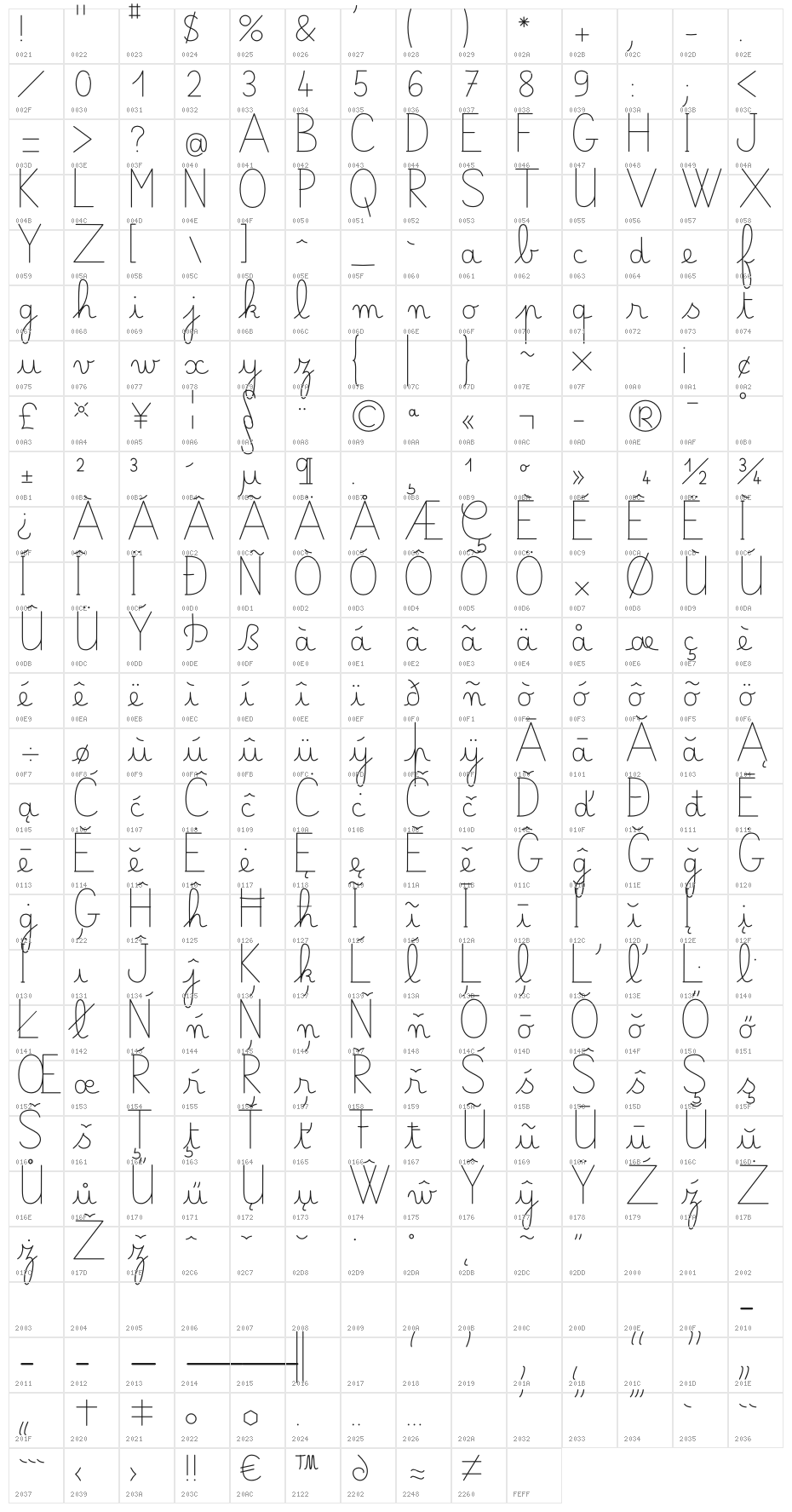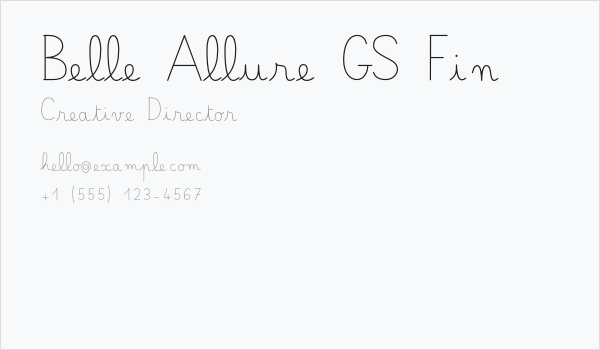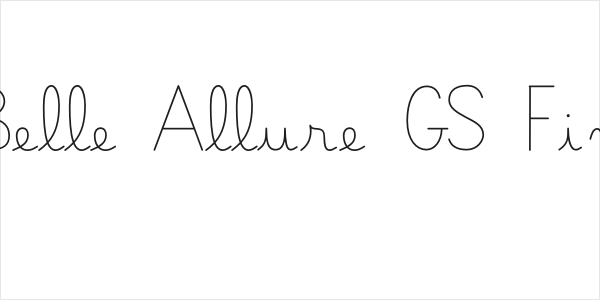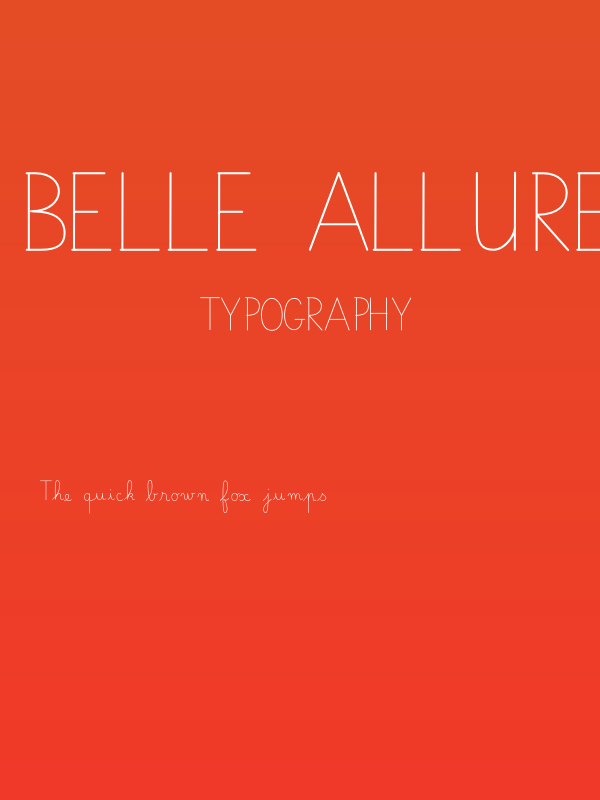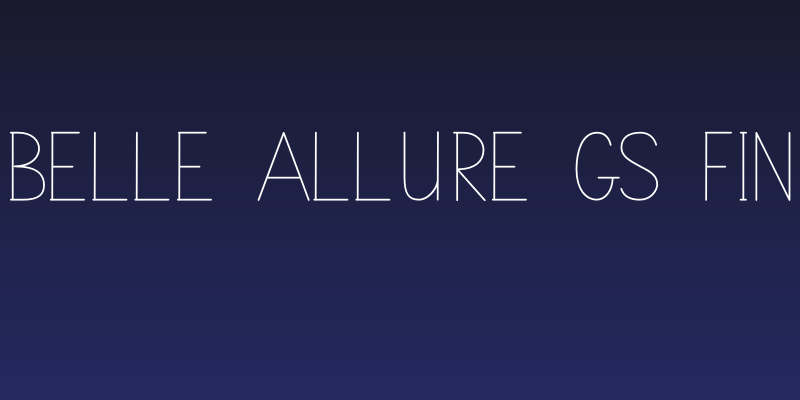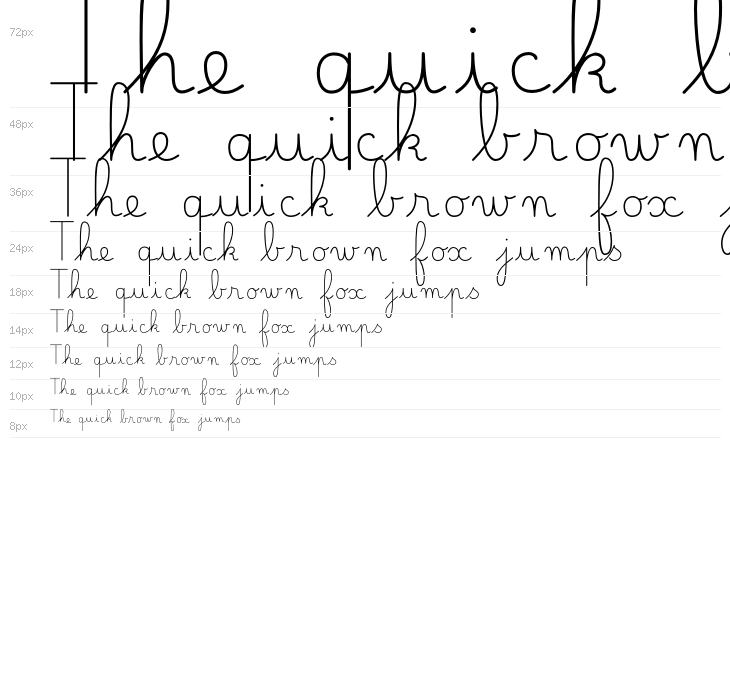
Belle Allure GS Fin Font
Belle Allure GS Fin Description
This font features a delicate and elegant design, combining both uppercase and lowercase letters with a thin, graceful stroke. The uppercase letters are structured with a clean and geometric style, while the lowercase letters exhibit a cursive, handwritten flair. The numerals are consistent with the uppercase style, maintaining clarity and simplicity. Special characters are thoughtfully integrated, matching the overall aesthetic of the font. The thin lines and elegant curves make it suitable for projects that require a touch of sophistication and modernity.
| Proposed Projects | Ideal for wedding invitations, elegant branding, fashion magazines, and upscale product packaging. |